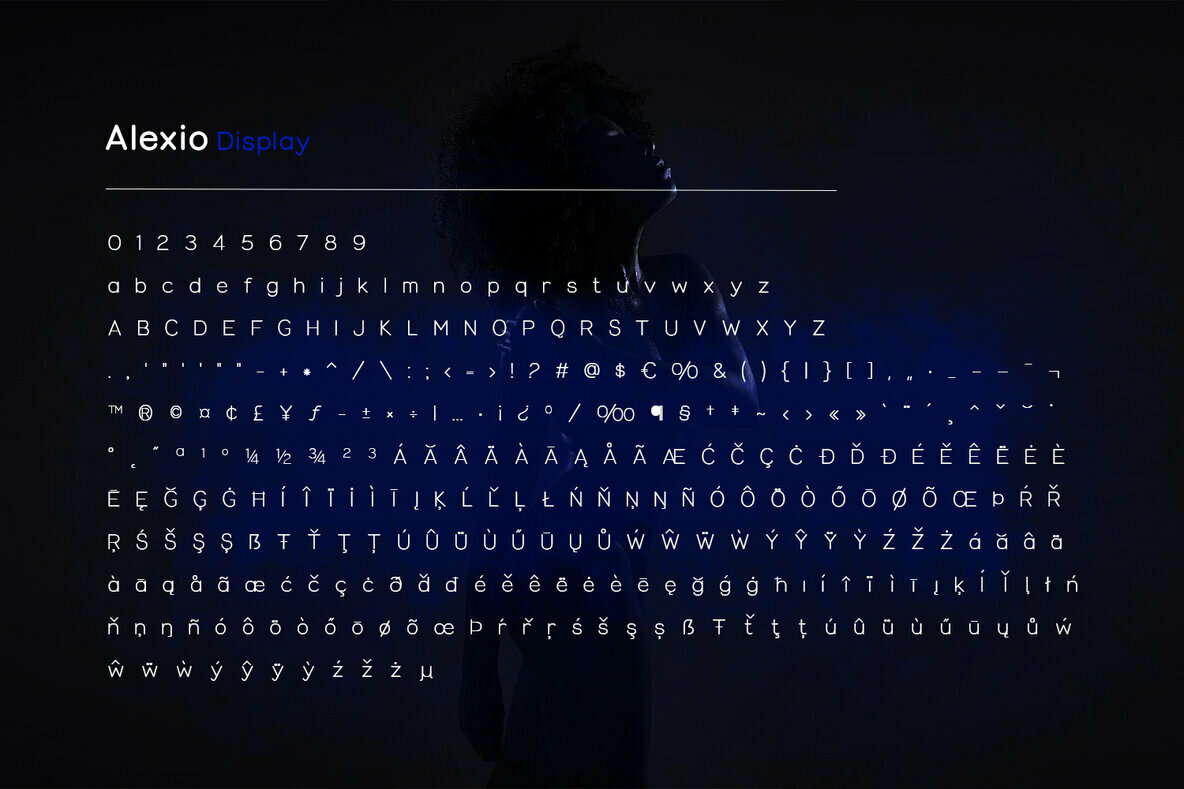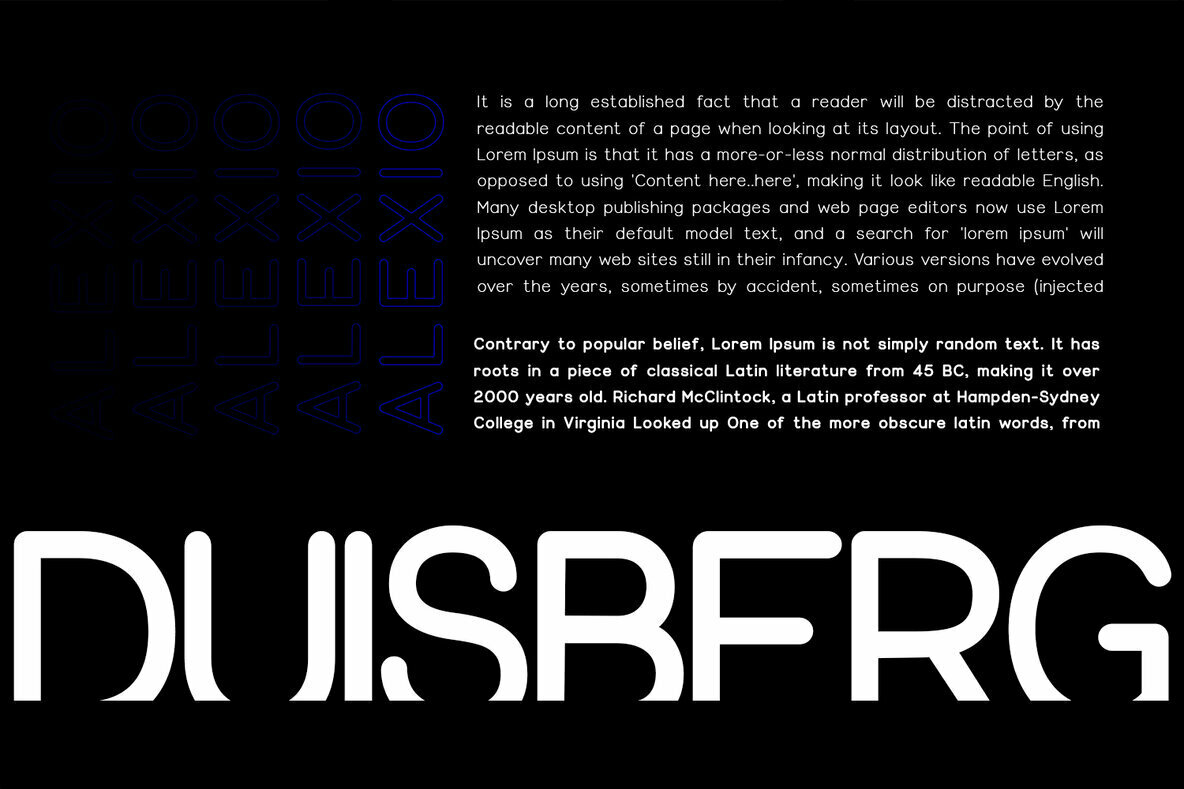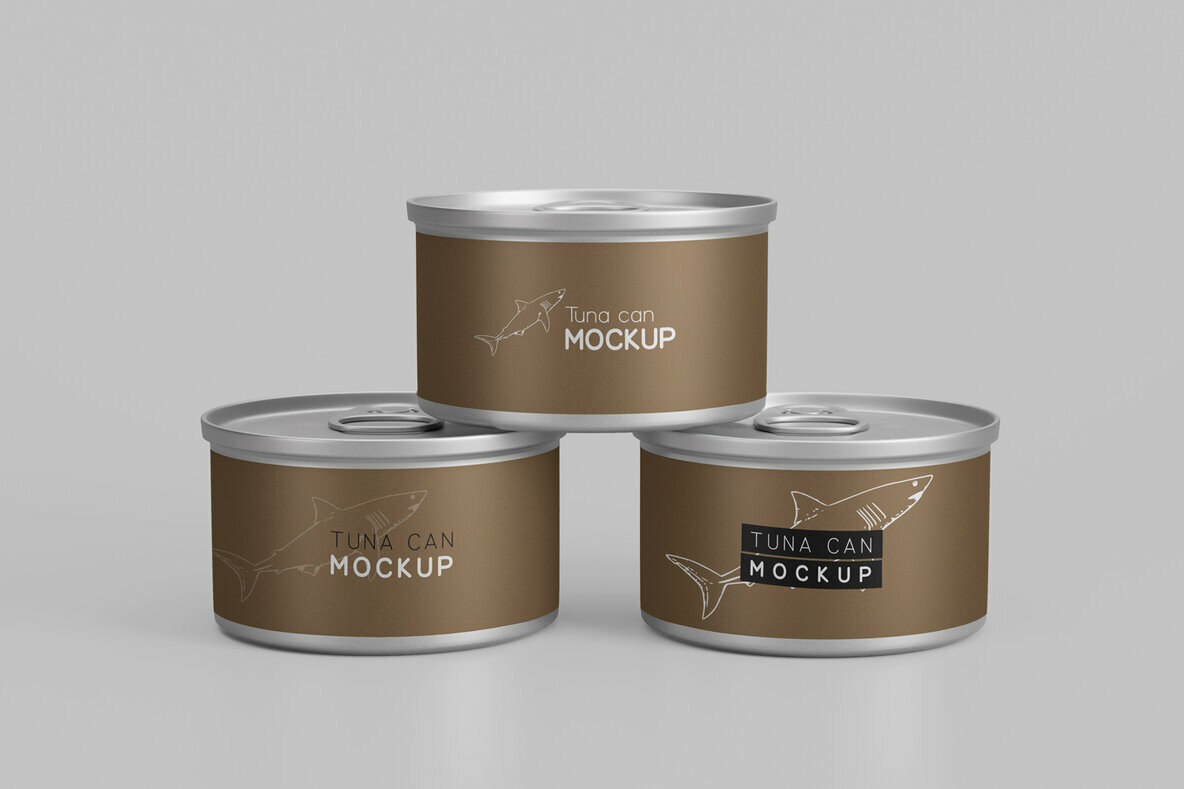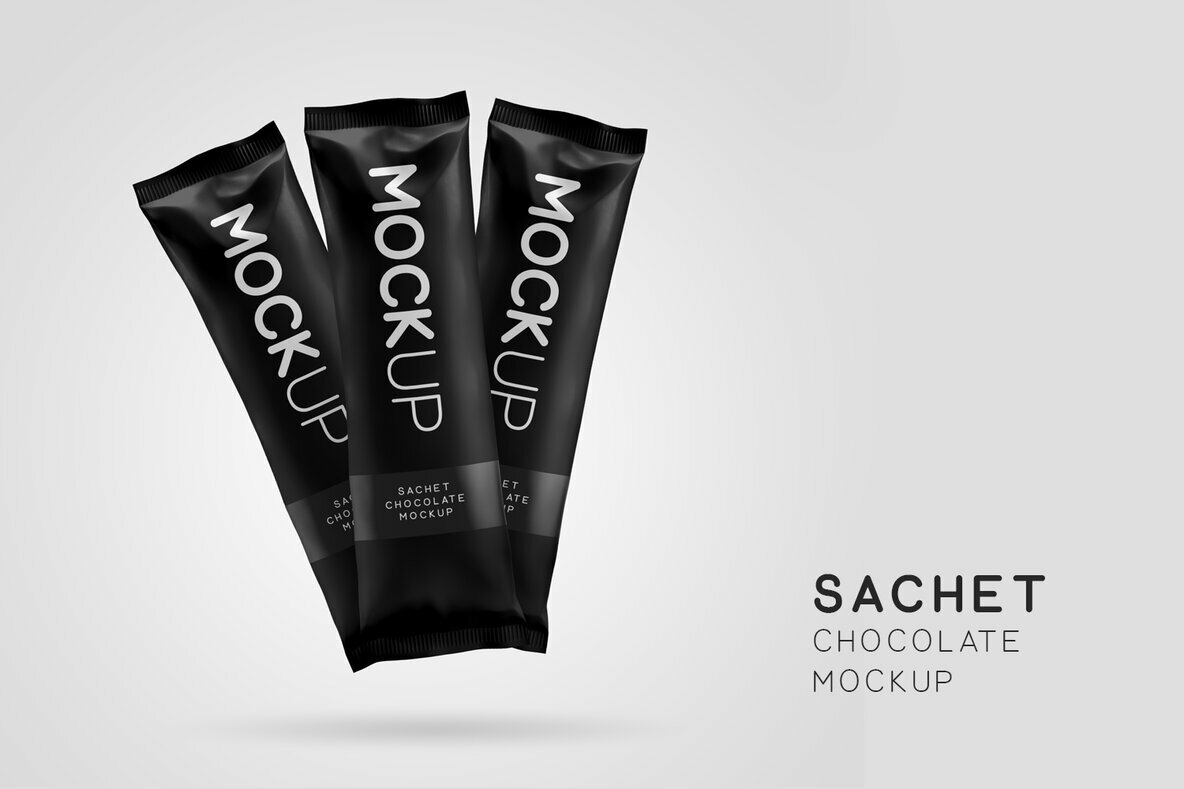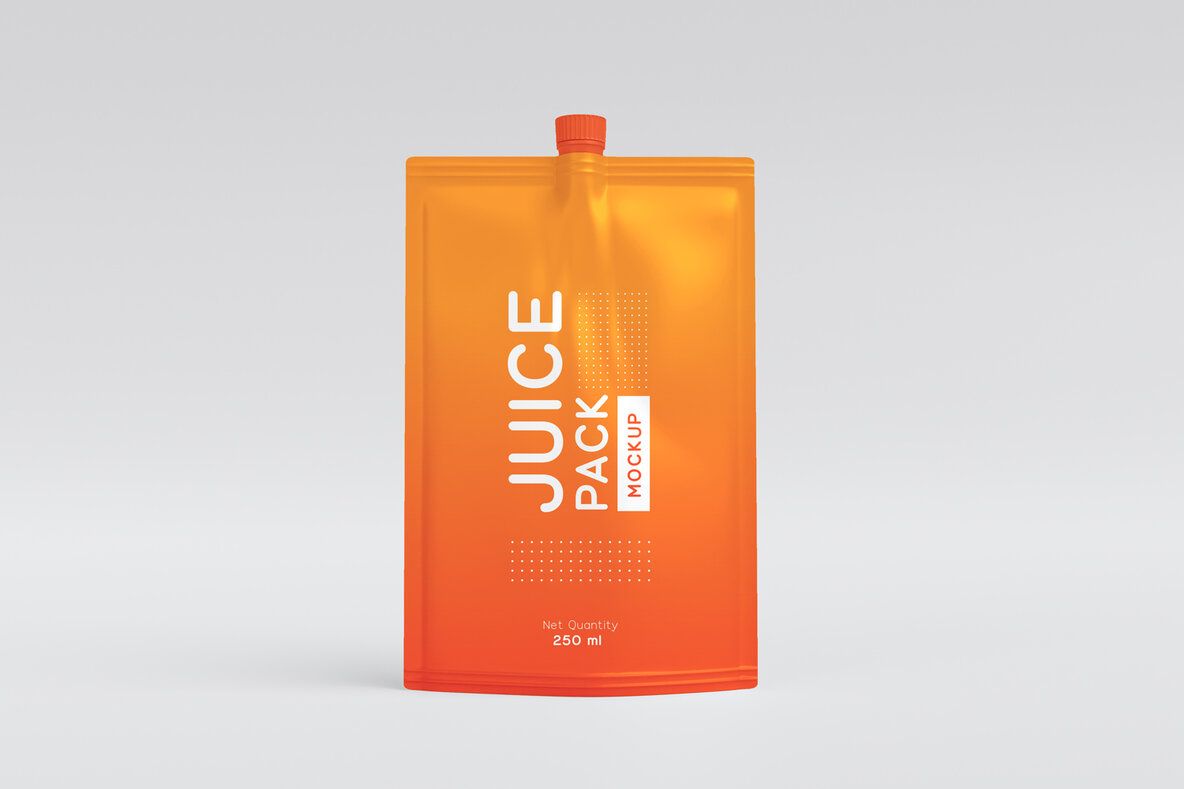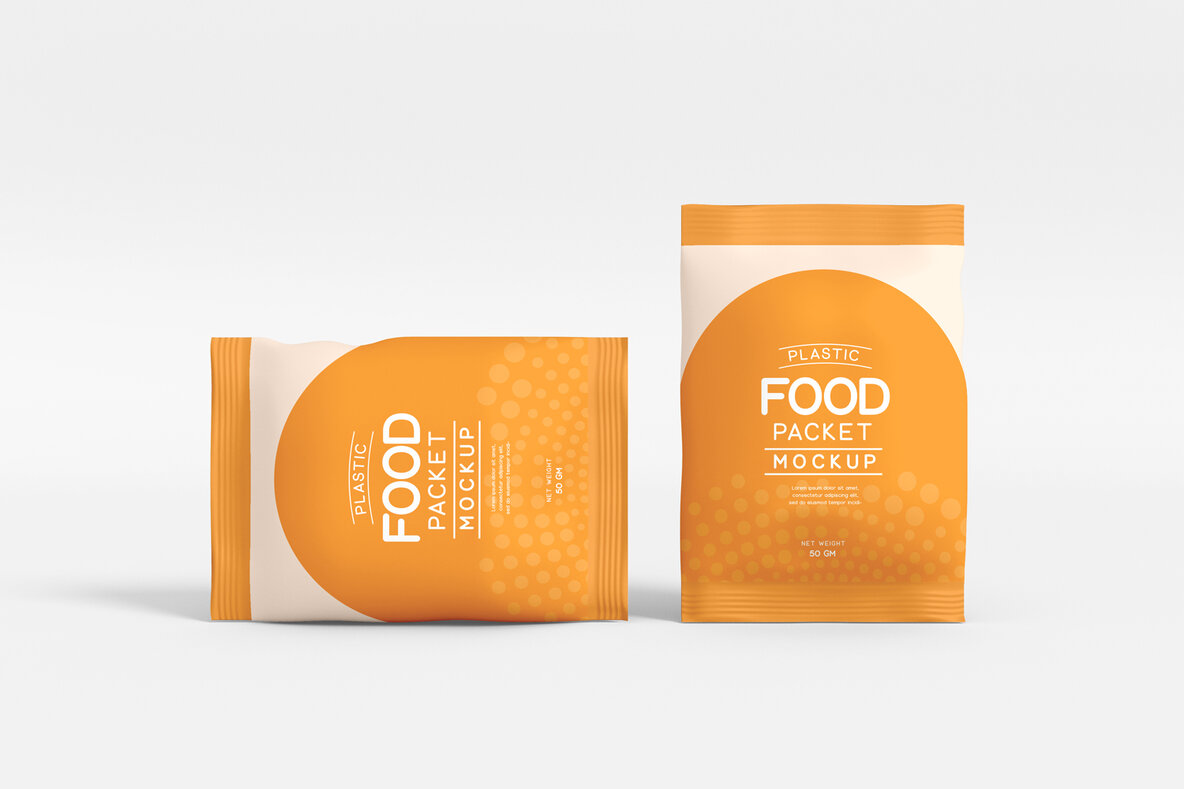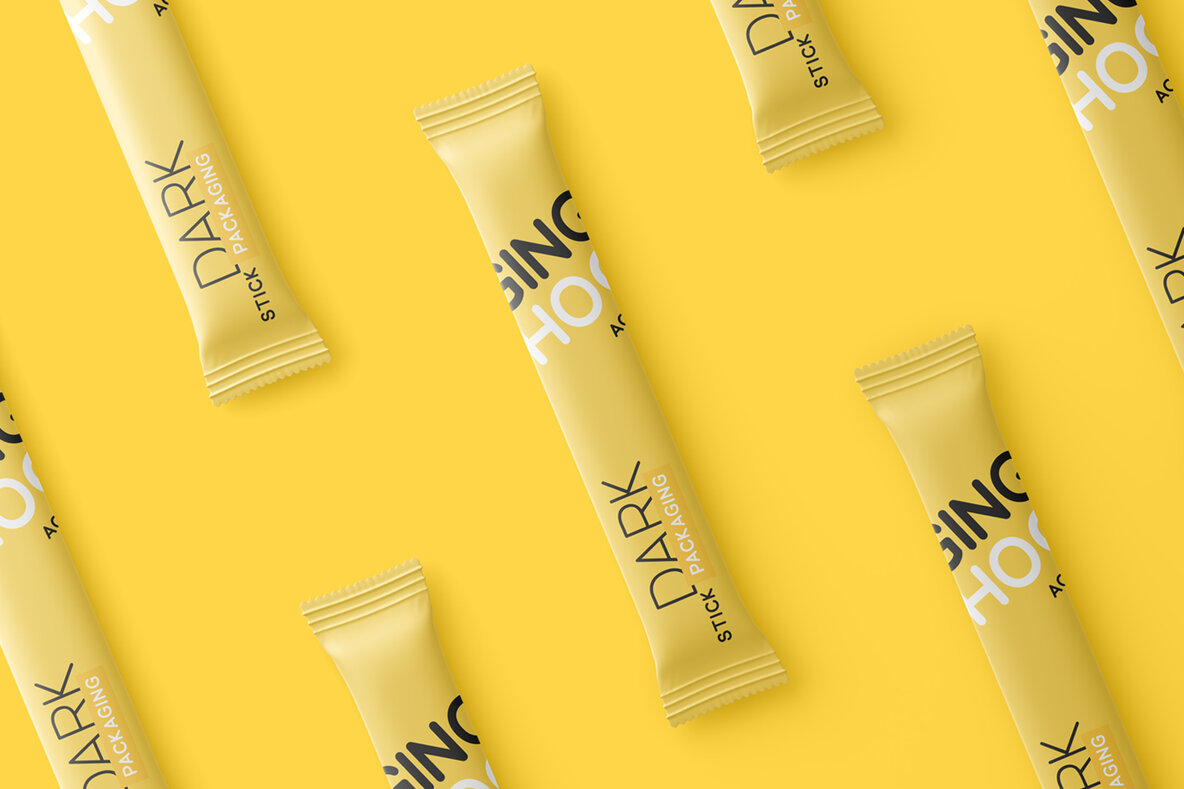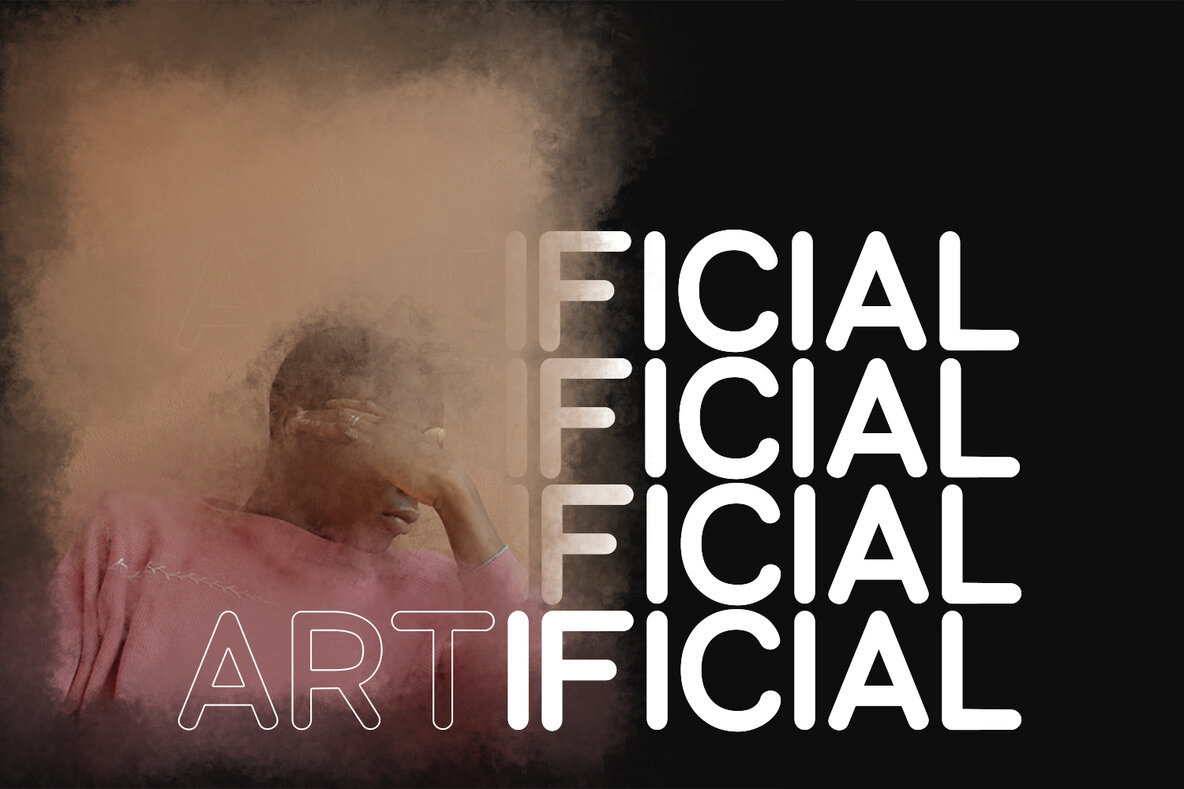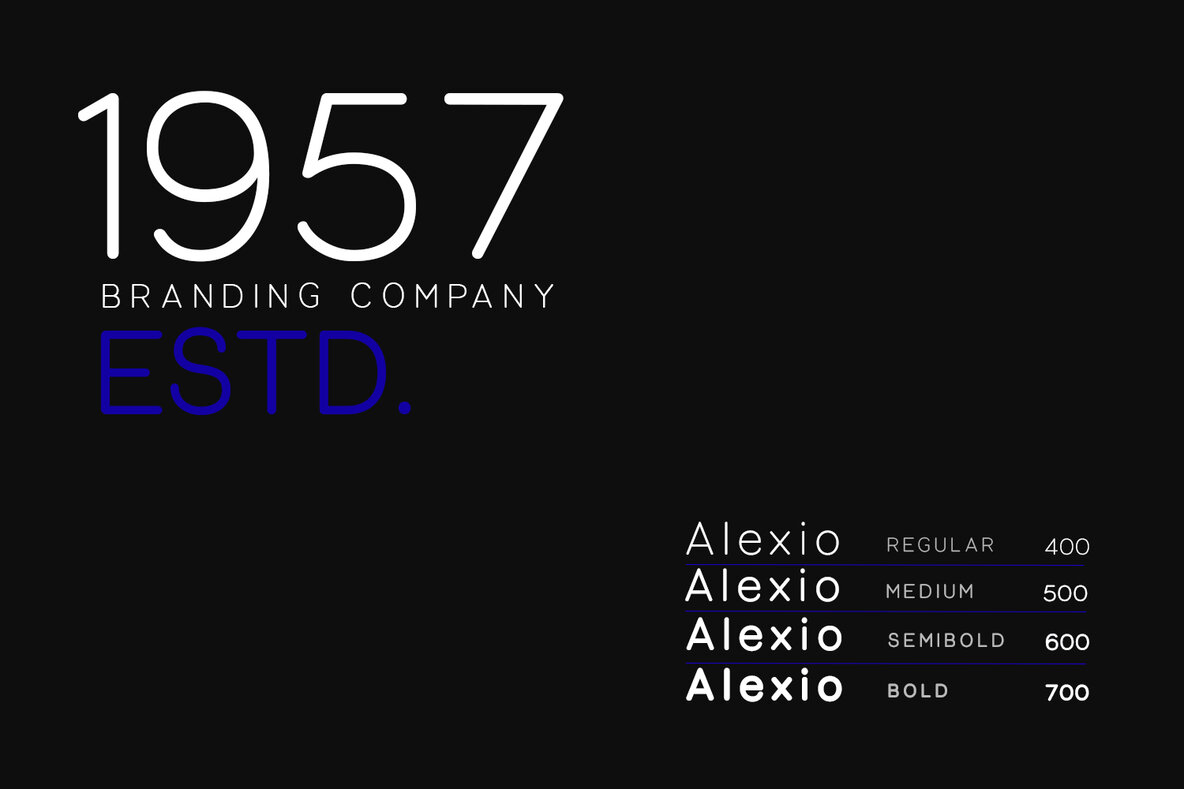
Alexio Ace Display Font
Alexio Ace Display, a distinguished member of the Alexio Font Family, stands out with its modern elegance and adaptability. This typeface excels in both large and small sizes, making it an ideal choice for various design needs. Whether you're crafting a brand identity, designing a logo, or selecting headlines and captions, Alexio Font provides a contemporary edge. Its strong capitals paired with a smooth, open lowercase deliver versatility across multiple projects, embodying a clean and minimalist warmth while offering quirky touches.Alexio Ace Display: Unique Modern Typeface